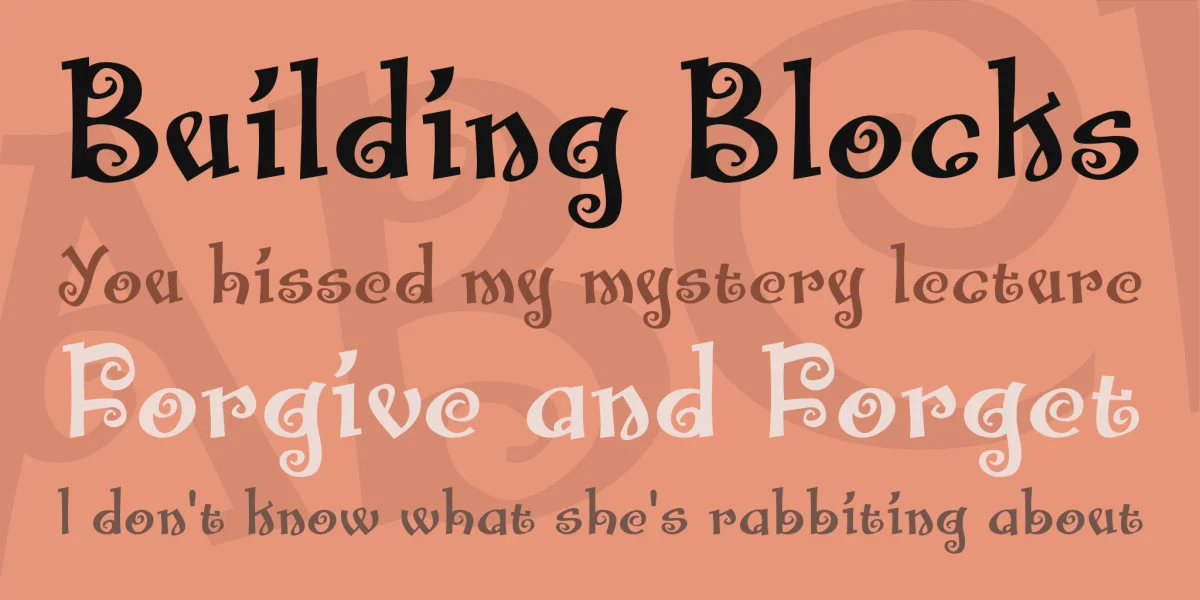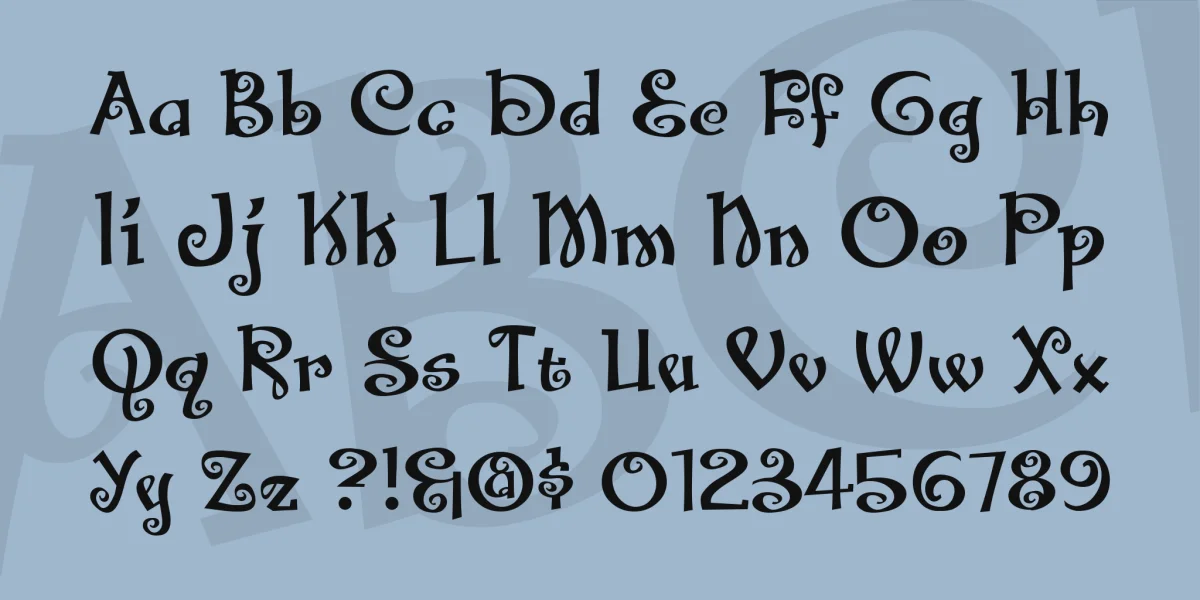
A decorative header font chock full of holiday cheer. Includes upper and lowercase. We’re pretty sure Santa’s big secret involves fishnets, but that’s just what we’ve heard.